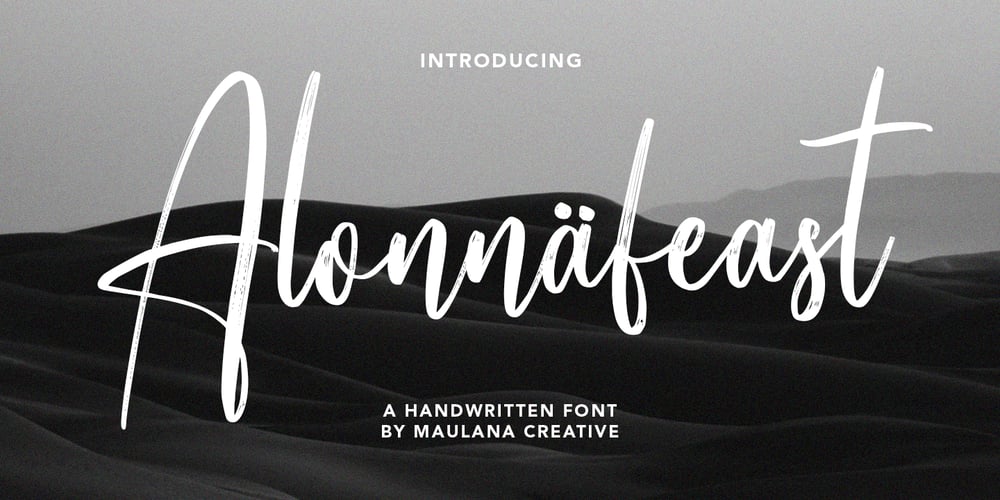
Alonnafeast
Alonnafeast font
Alonnafeast Font Family was designed by Gilang Maulana and published by Maulana Creative. Alonnafeast contains 1 styles and family package options. Give your designs an authentic handcrafted feel. Alonnafeast Brush Script Font is perfectly suited to logo, stationery, branding, typography quotes, magazine or book cover, website header, clothing, branding, packaging design, restaurant and more.Cheers, MaulanaCreative